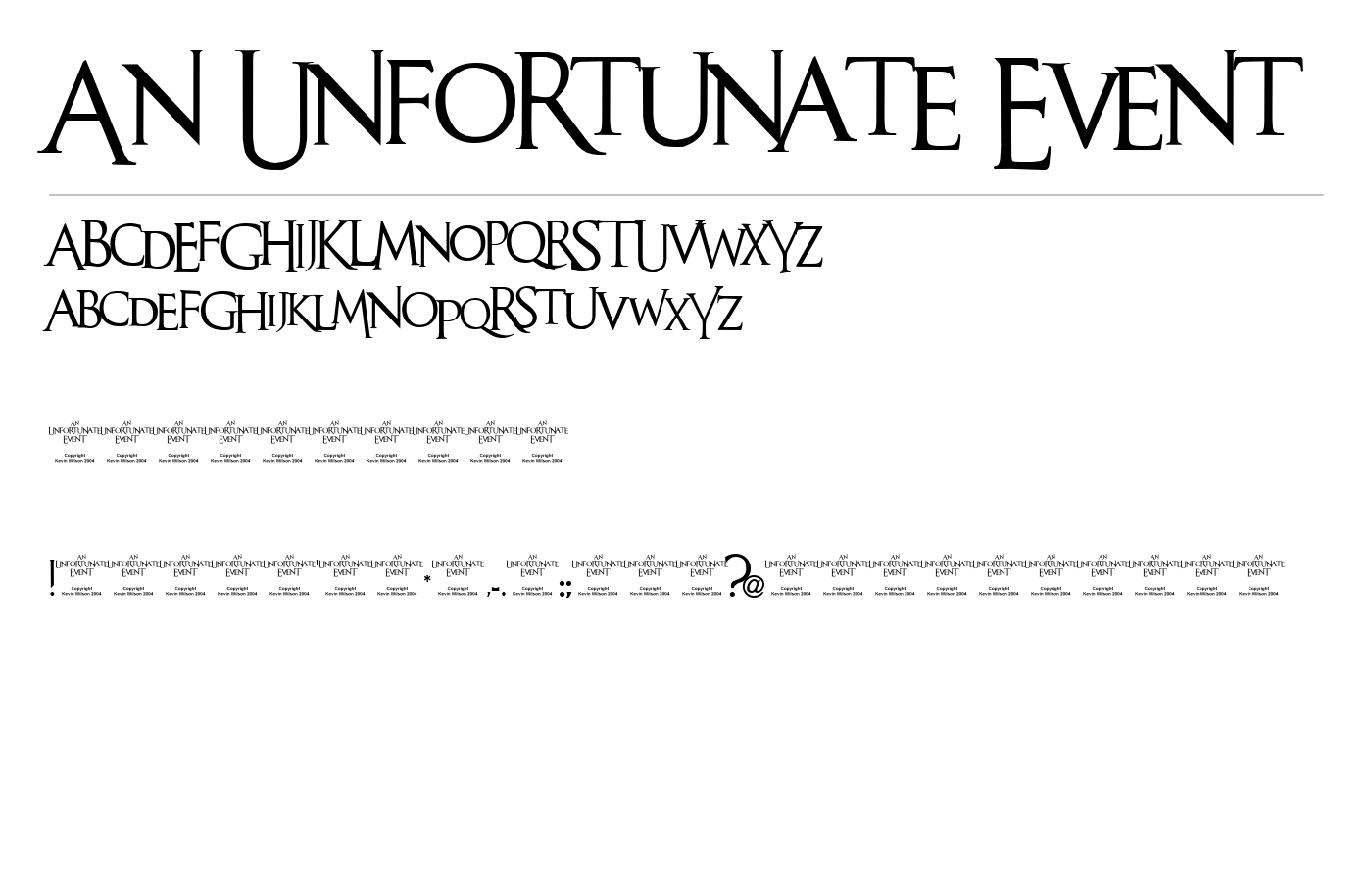
An Unfortunate Event is a slender serif font with a distinctive, slightly quirky style that combines tall, narrow letterforms with sharp, angular serifs. Its high contrast between thick and thin strokes and uneven, unevenly weighted shapes give it an eerie, whimsical feel perfect for vintage or mysterious themes. This font is ideal for creative headlines, book covers, or branding where a touch of gothic or storybook charm is desired.
An Unfortunate Event Font
About An Unfortunate Event Font
| Font family | An Unfortunate Event Font |